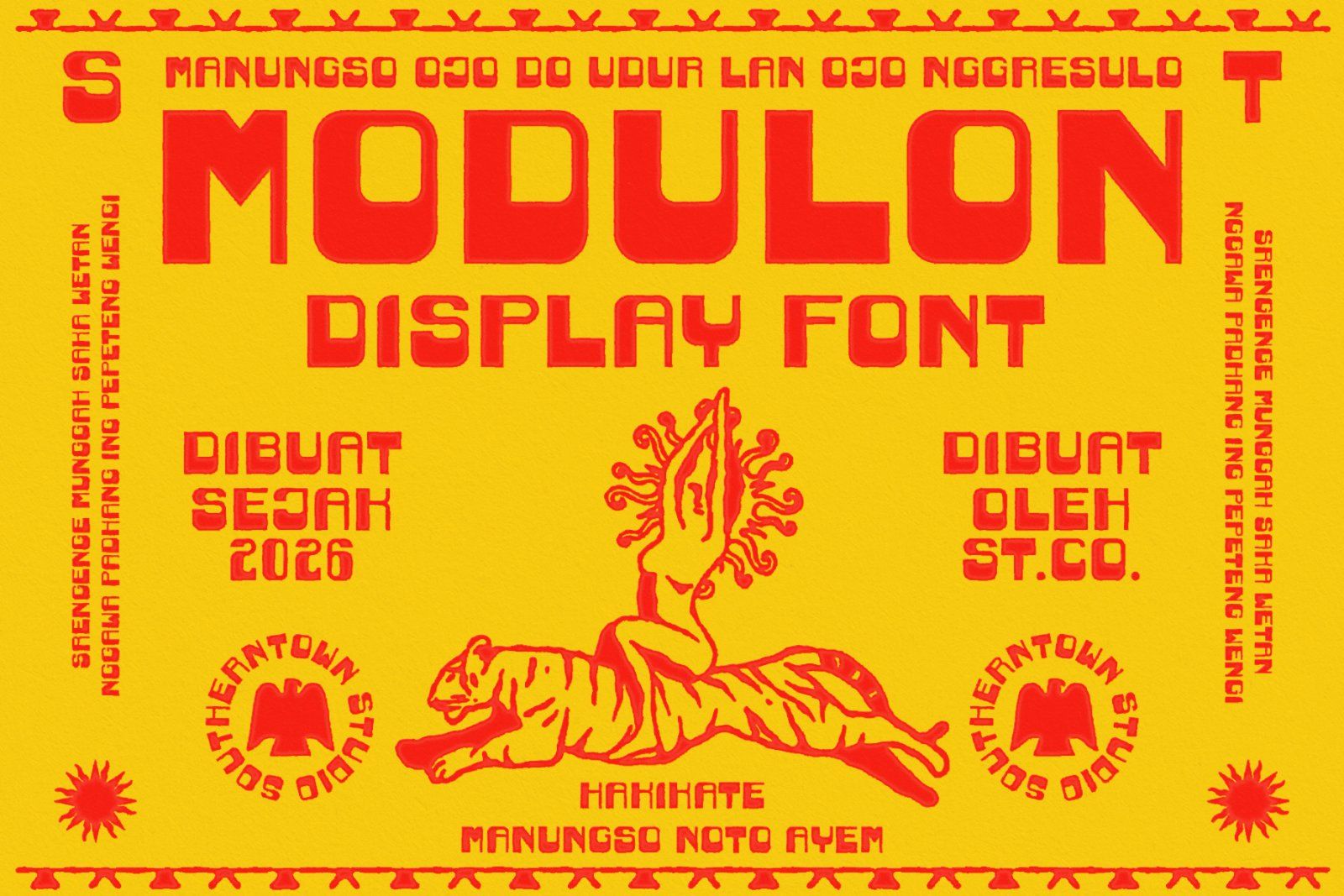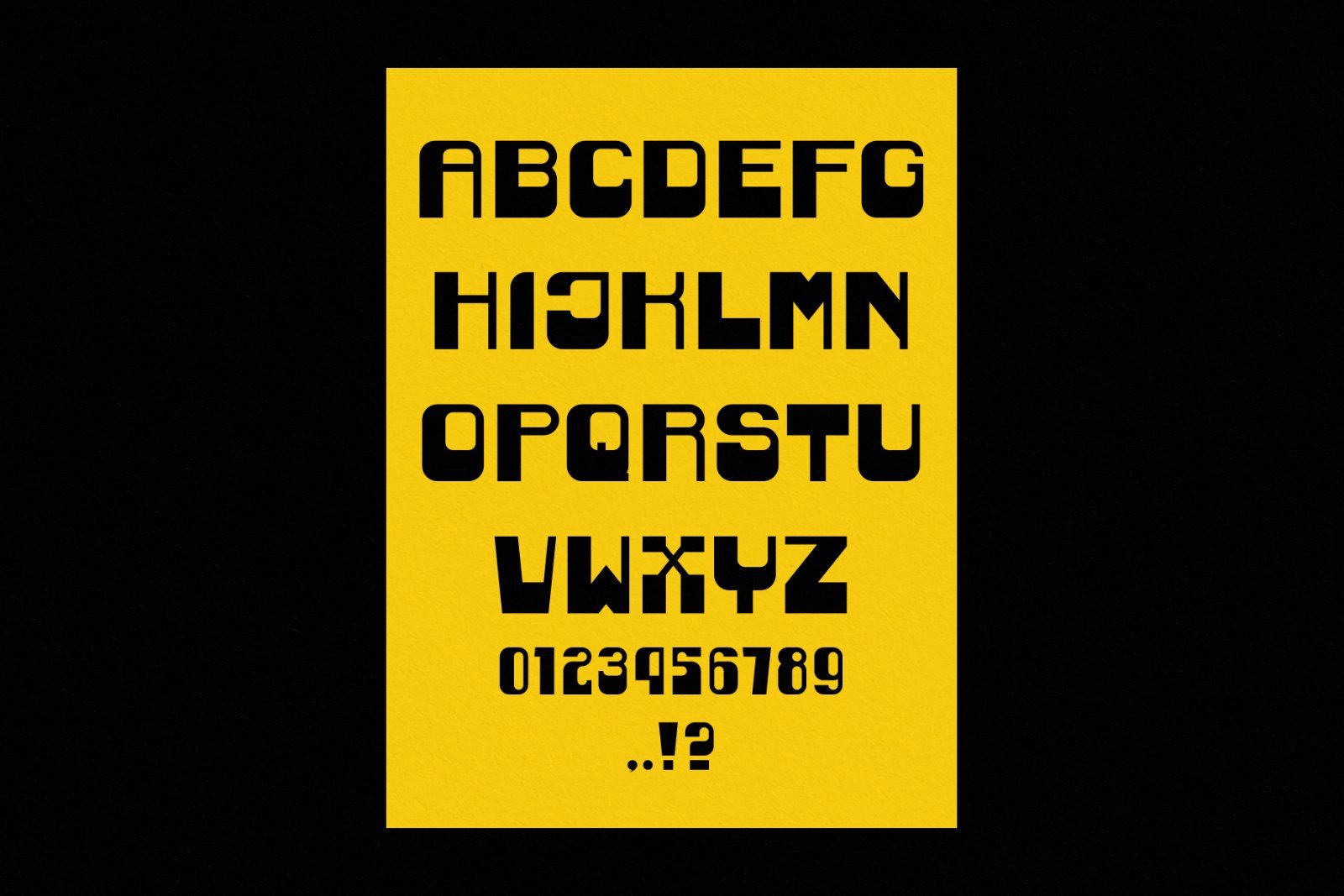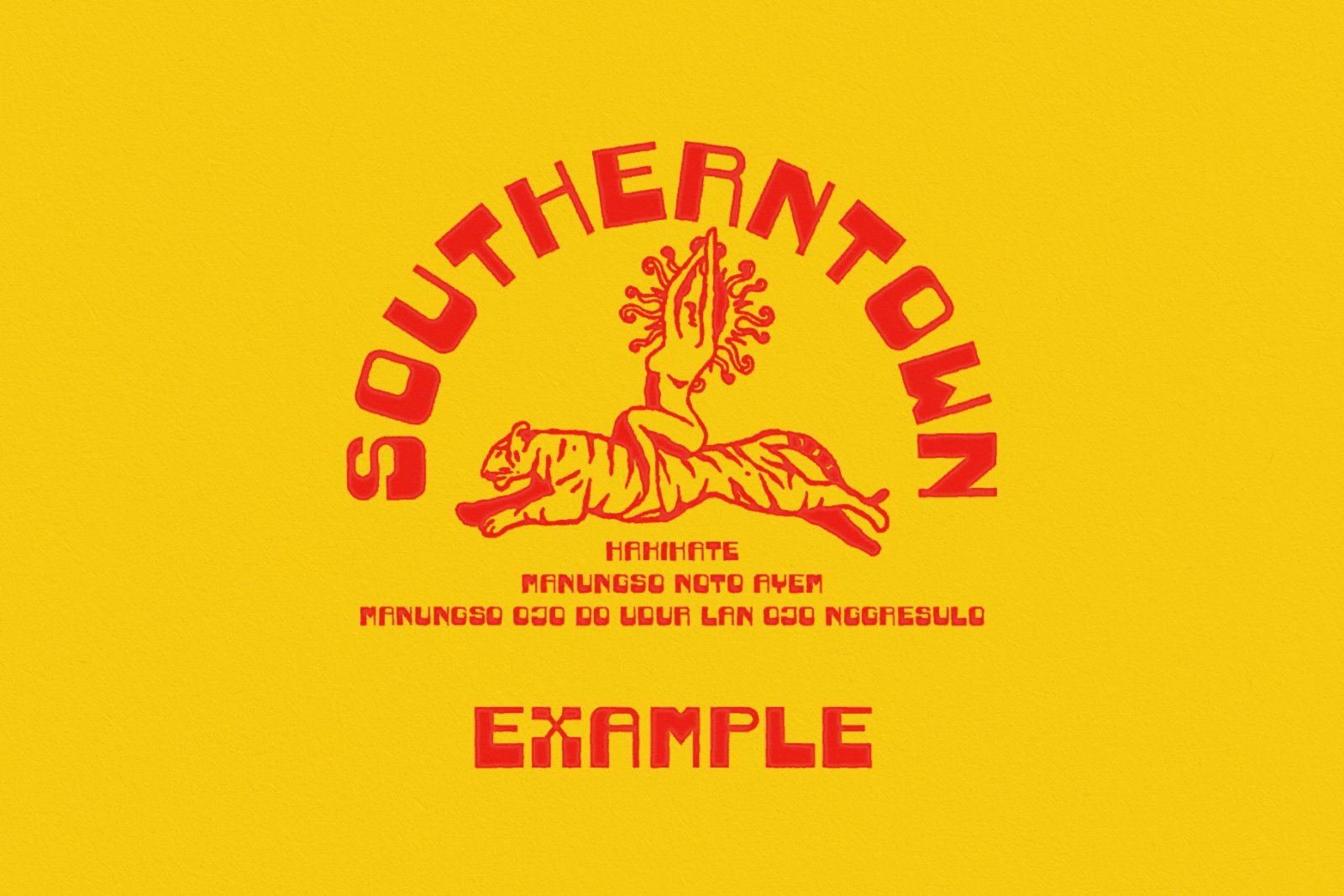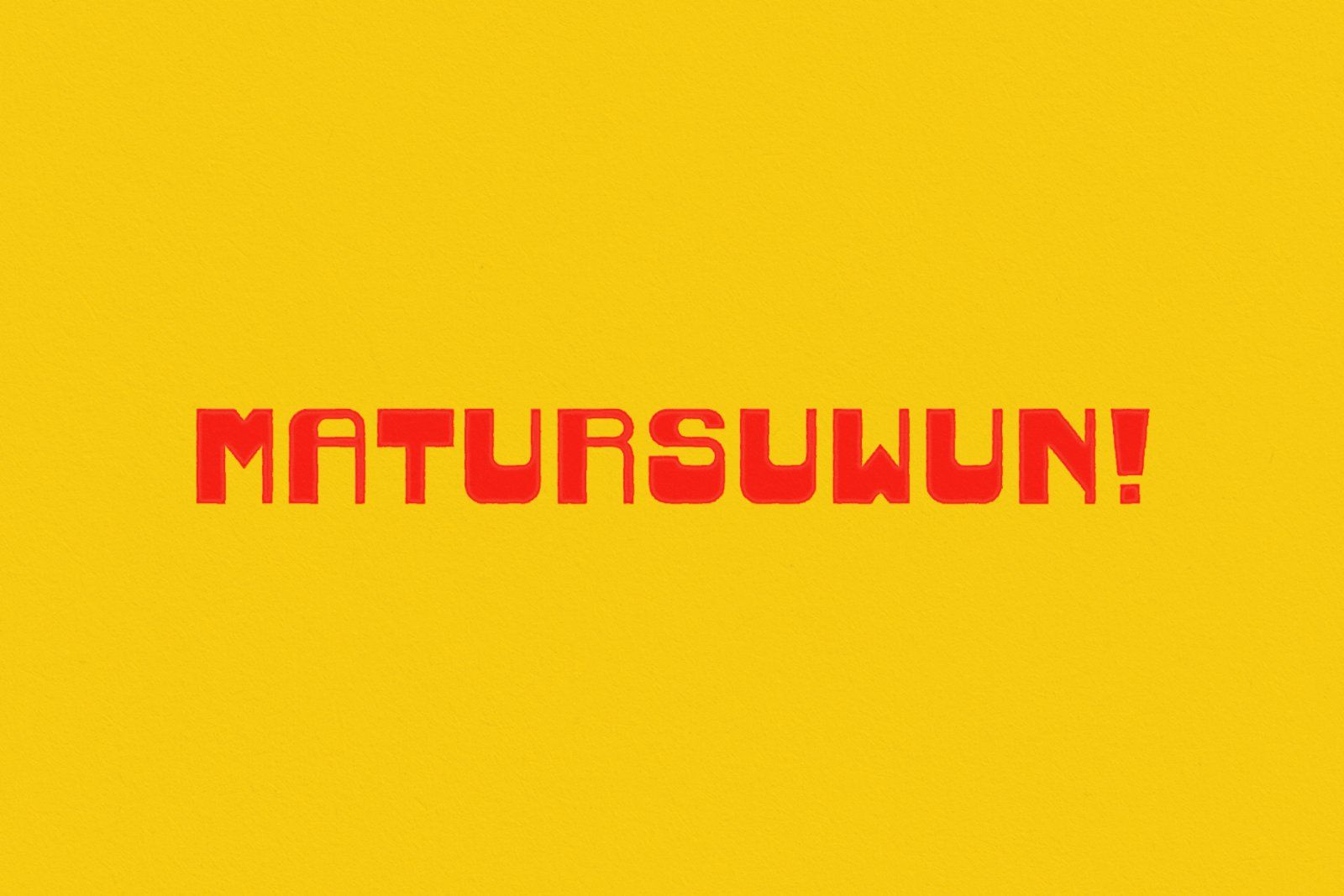
MODULON Display Font
MODULON is a unique vintage display font designed to bring a bold and nostalgic character to your creative projects.
Inspired by retro typography, classic signage, vintage posters, and old-school graphic design, MODULON features distinctive letterforms with a strong and playful personality. Its unique shapes make it perfect for creating eye-catching headlines and memorable designs.
This font is especially suitable for vintage apparel designs, retro posters, classic branding, merchandise, labels, packaging, and old-school inspired graphics.